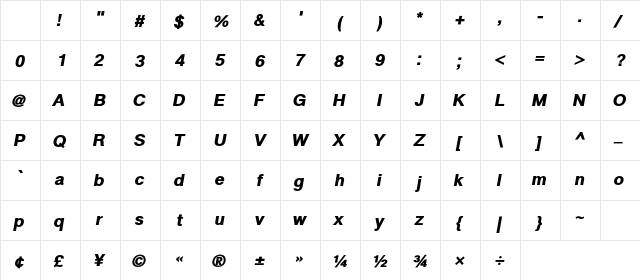
Complete MP DBManopticaN B It glyph index. Displaying only characters natively supported by MP DBManopticaN B It font.
MP DBManopticaN is a composed and adaptable typeface that performs quietly and consistently across a wide range of design contexts.